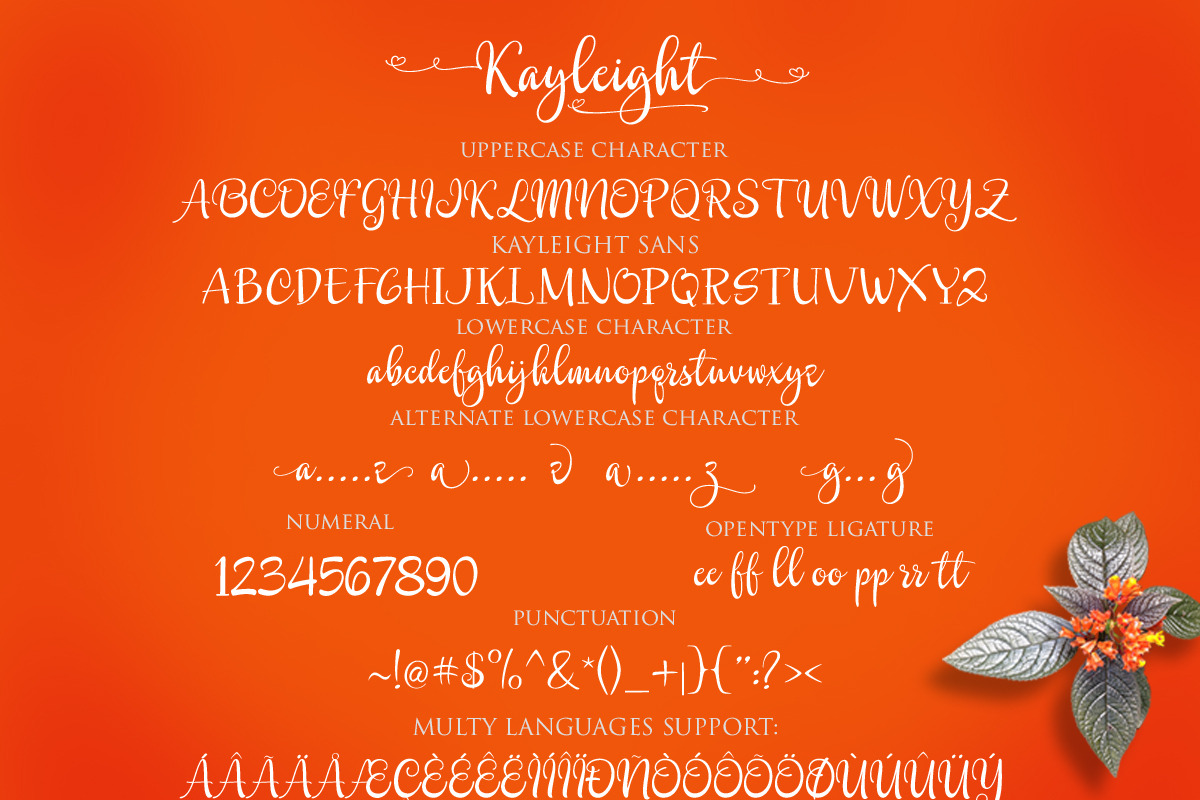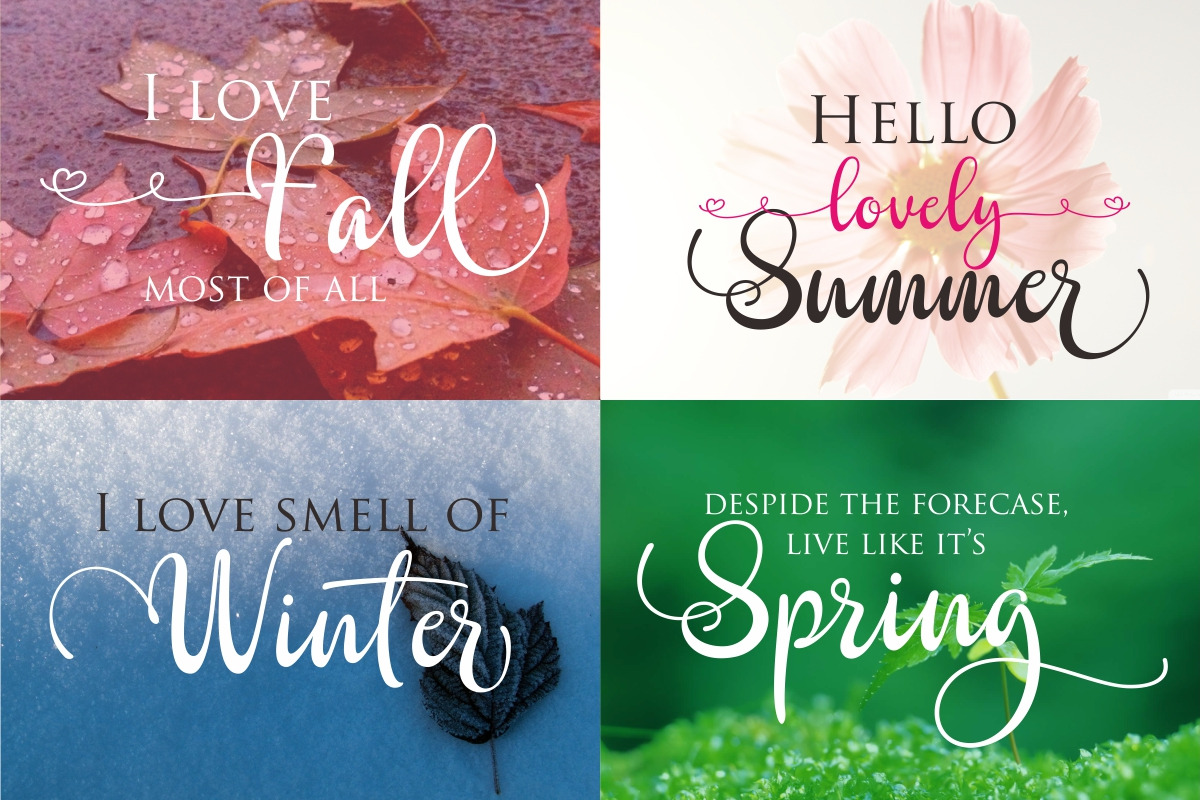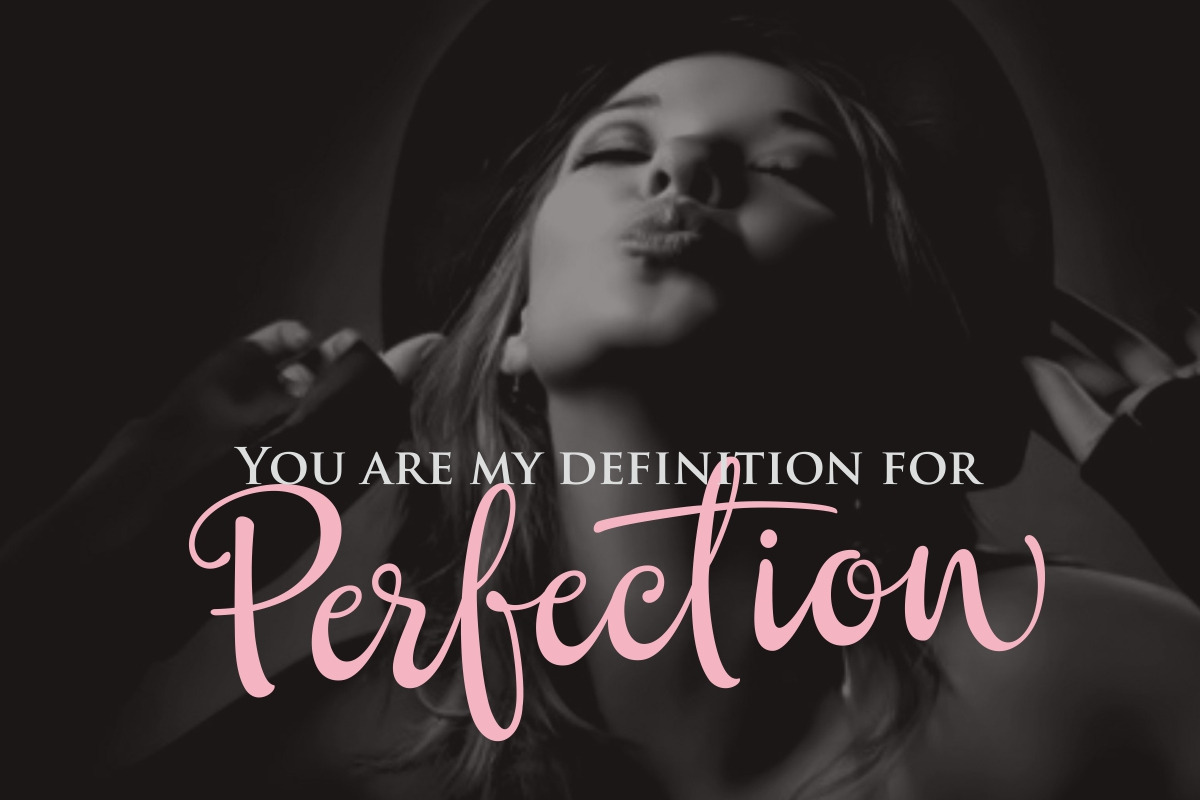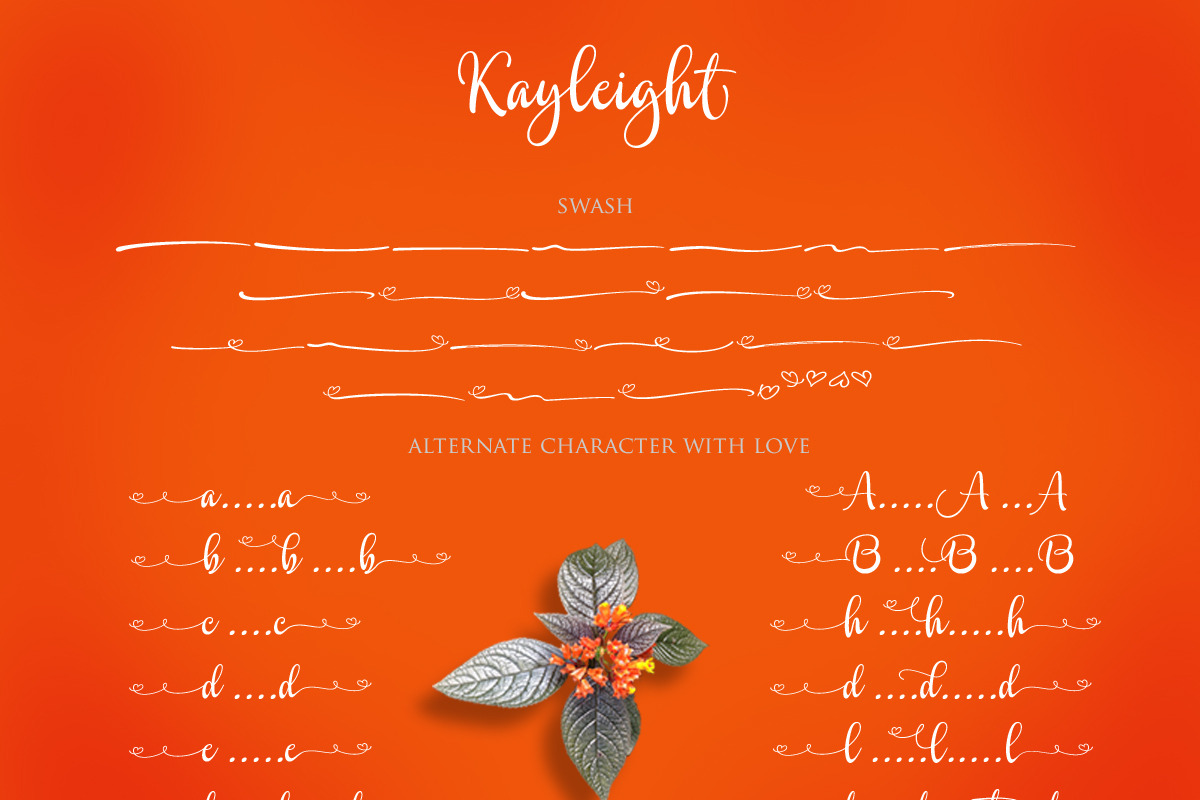
Kayleight
Kayleight Font is a beautiful modern font that comes with 468 glyphs. It features smooth lines and characters that weld together nicely. The font has a modern calligraphy style and features beautiful swashes. It is easy to read and fun to work with.
There is no doubt that you will get professional results with this font and you will be able to amaze your customers. Kayleight Font has given PUA unicode (specially coded fonts), with tons of alternate characters. The pack can be accessed in full by any crafter or designer, without the requirement for extra design software, COMPATIBLE WITH SILHOUETTE & CRICUT DESIGN SPACE
The Features of this fonts is: Contextual Alternates, Standart ligatures, Stylistic Alternates, Stylistic Sets,